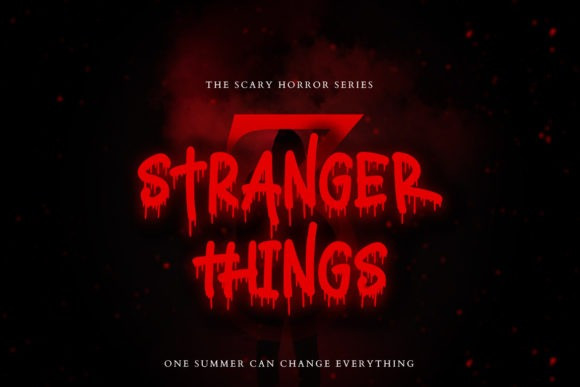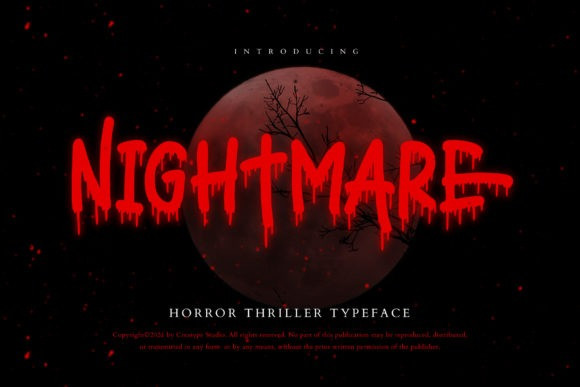
Nightmare Font
Nightmare Display Font is a creepy and dark looking display font. It is perfectly suitable for any Halloween-related project or crafty idea! The only limit is your imagination.